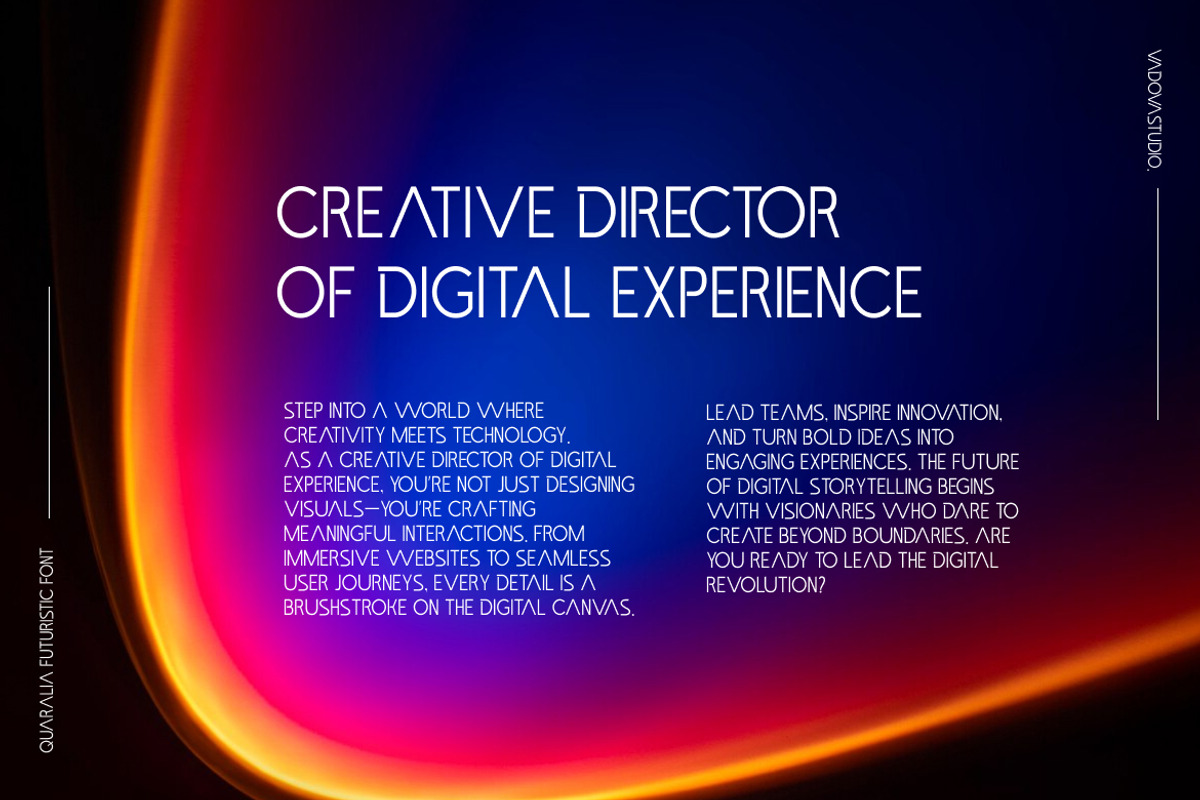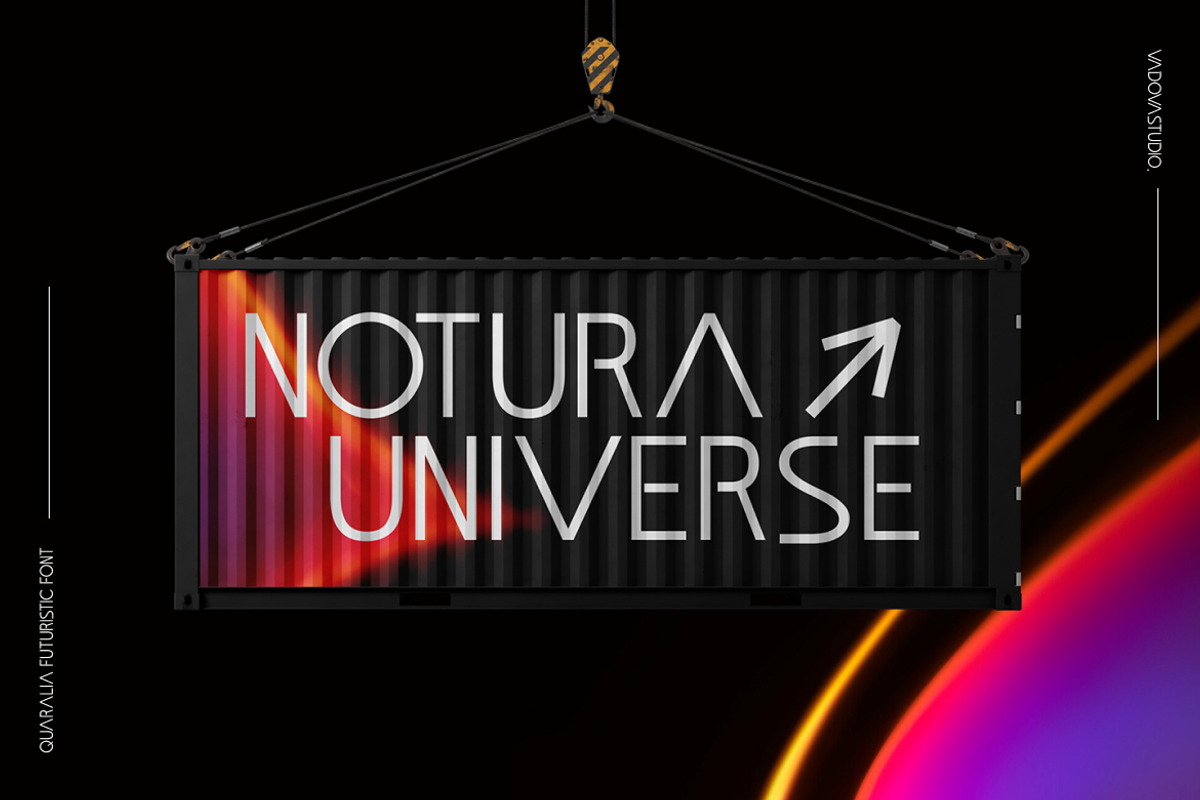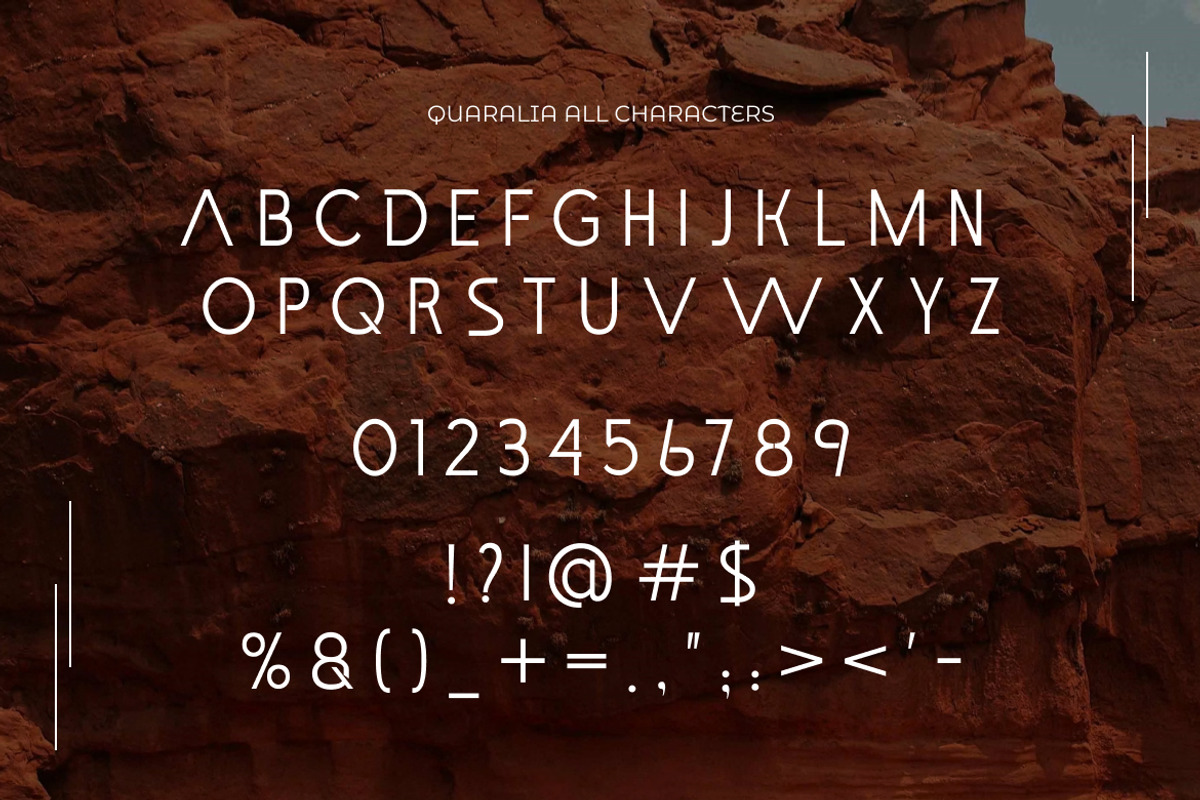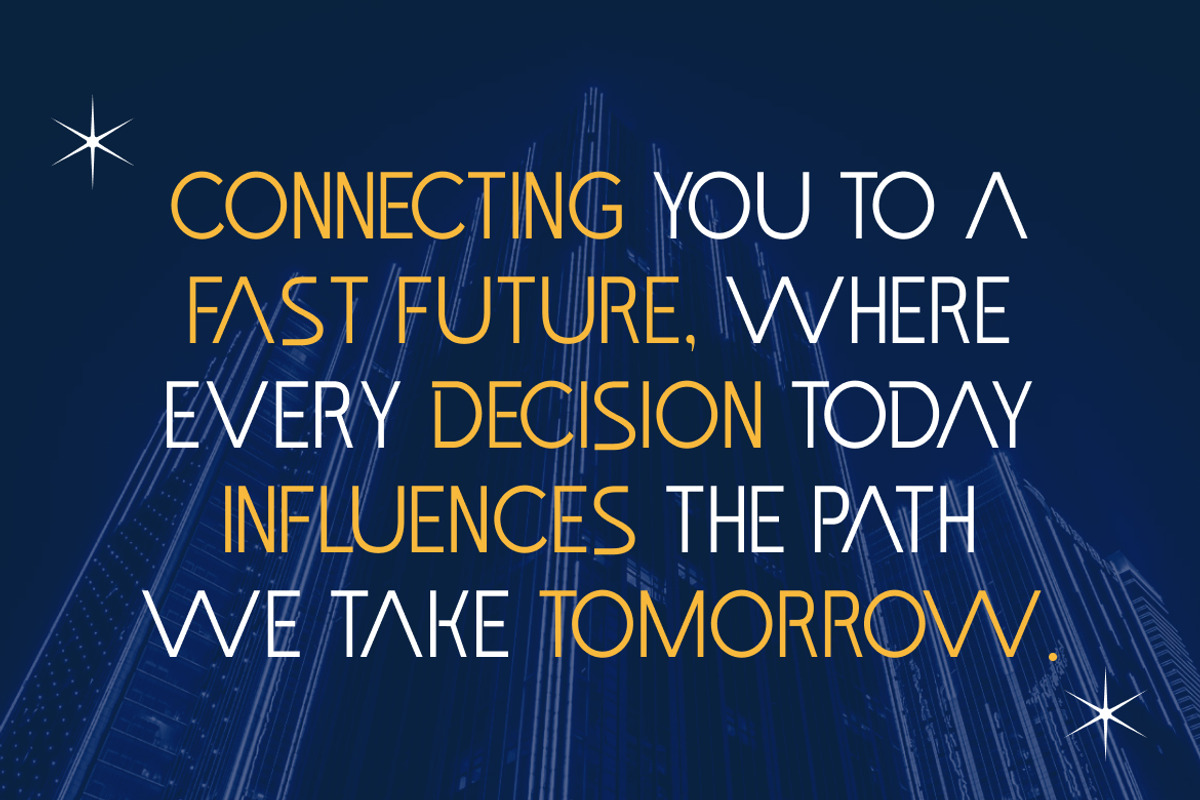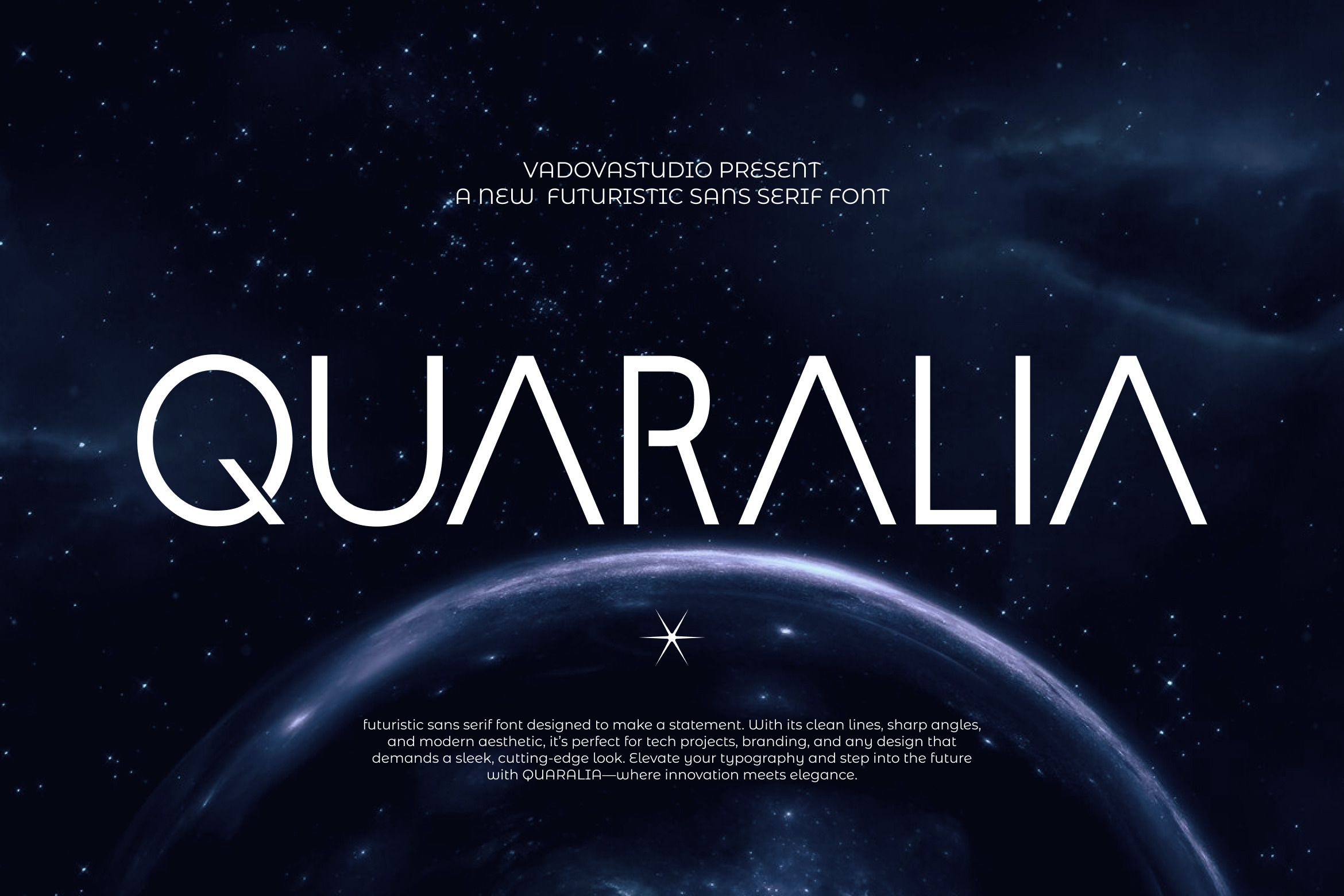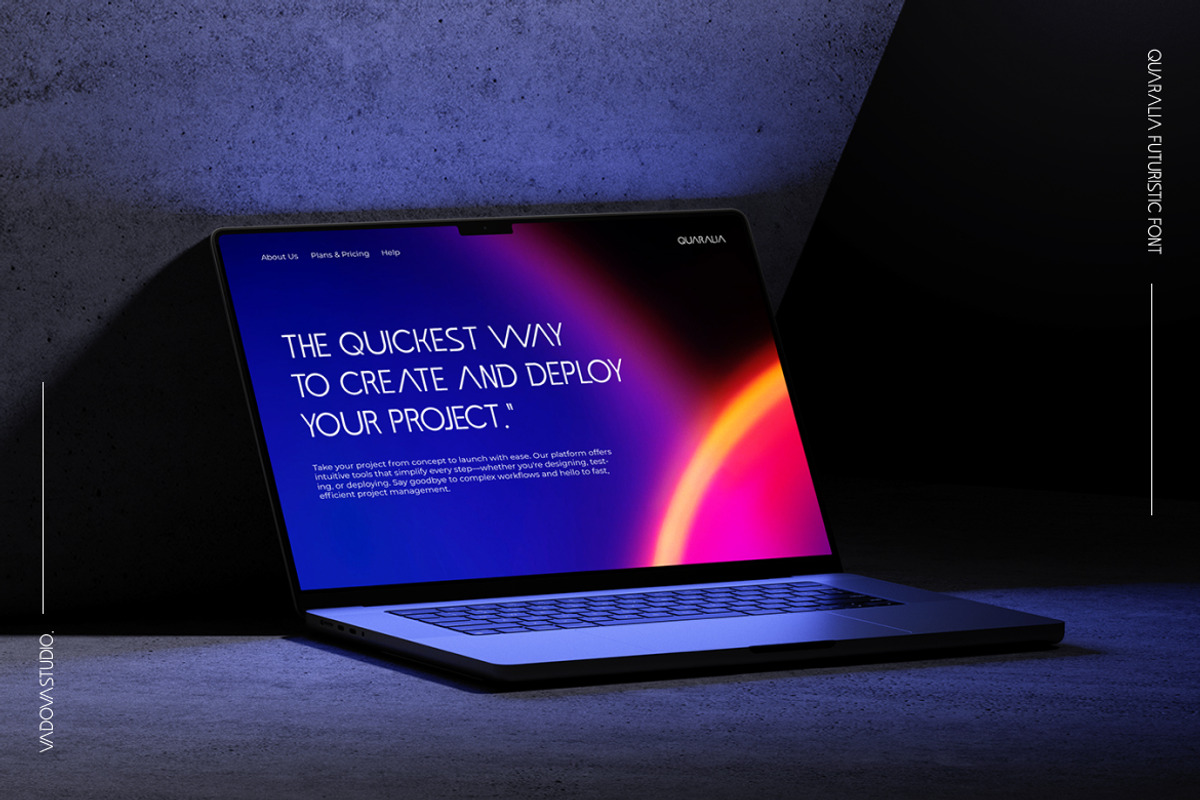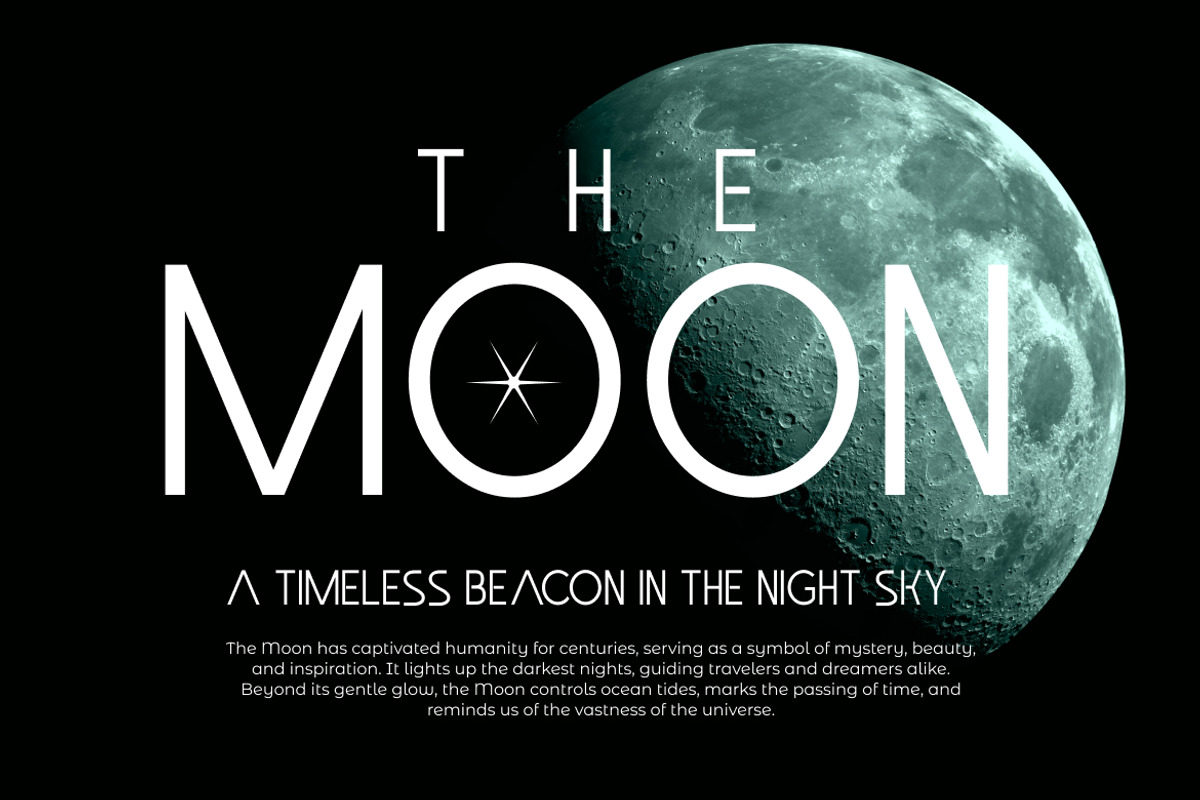
Quaralia Sans Serif Font
Quaralia embodies a modern and elegant style with a distinctly cosmic and futuristic energy. The intended market vibe leans towards technology, science, space exploration, and innovative digital experiences, making it suitable for tech startups, science-related publications, and forward-thinking brands.
Its best use cases include branding for technology companies, website typography for innovative platforms, editorial design for science and tech magazines, marketing materials for futuristic products, and potentially even gaming interfaces with a sophisticated edge.
Launch your designs into a new orbit with Quaralia, a cosmic-inspired sans-serif that delivers both stellar elegance and exceptional clarity, making your message resonate with futuristic sophistication.
Main Features
- Uppercase & Lowercase characters
- Numeral & Punctuations
Quaralia Sans Serif Font Suitable For technology and science branding, innovative website typography, and editorial design for tech magazines. Its modern, futuristic energy also lends itself well to marketing materials for cutting-edge products and even sophisticated gaming interfaces.